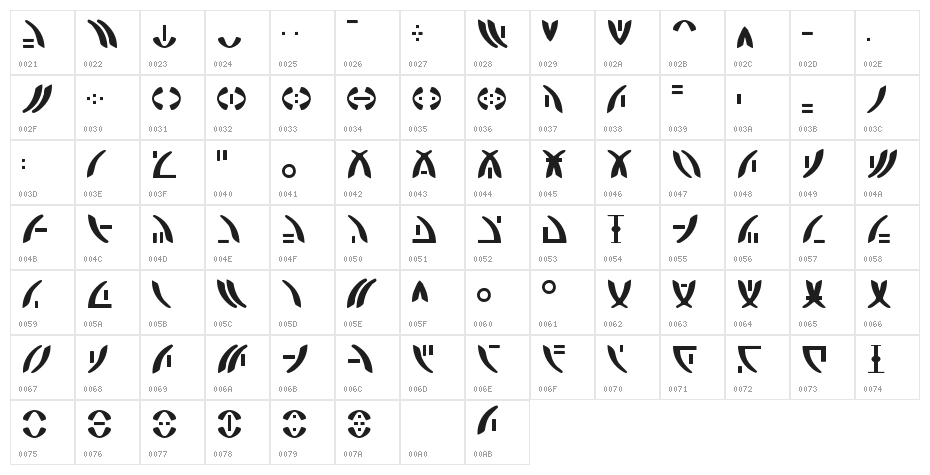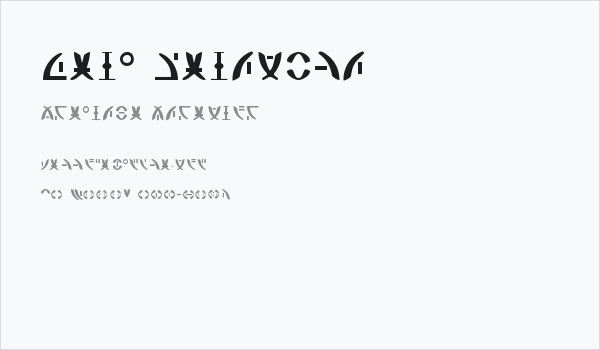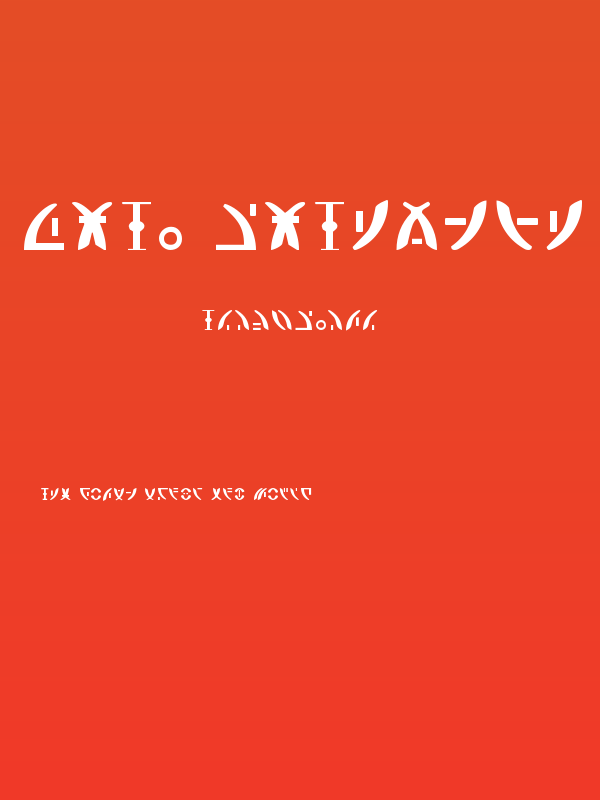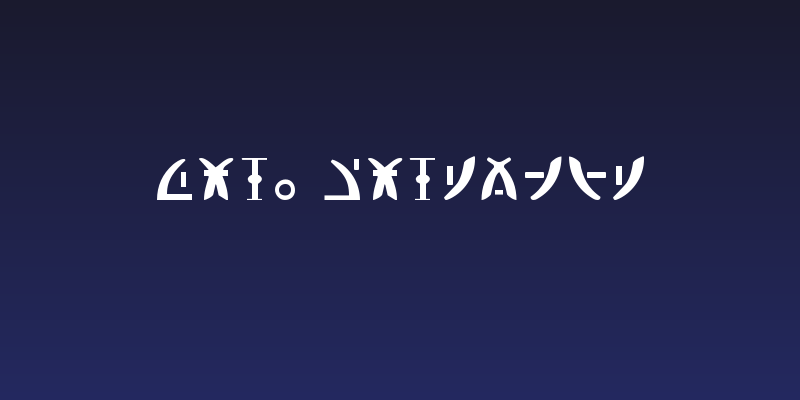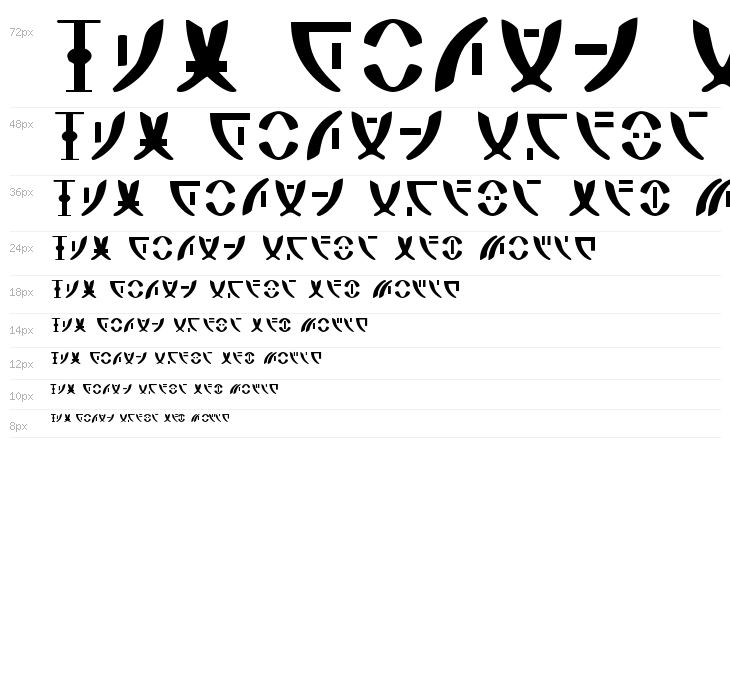
Zeta Reticuli Font
Zeta Reticuli Description
This font features a highly stylized and abstract design, reminiscent of alien or futuristic scripts. The characters are composed of bold, geometric shapes with a strong emphasis on curves and angles, creating a sense of mystery and otherworldliness. The glyphs are distinct and unconventional, lacking traditional letterforms, which gives the font a unique identity. The use of solid black shapes and negative space enhances its visual impact, making it suitable for creative and experimental projects. Its design is consistent throughout, maintaining a cohesive look across all characters.
| Overall Style | Futuristic, Abstract |
| Use Case | Logos, Posters, Creative Projects |
| Proposed Projects | Ideal for sci-fi themed designs, video game interfaces, movie posters, or any project requiring a mysterious and futuristic aesthetic. |